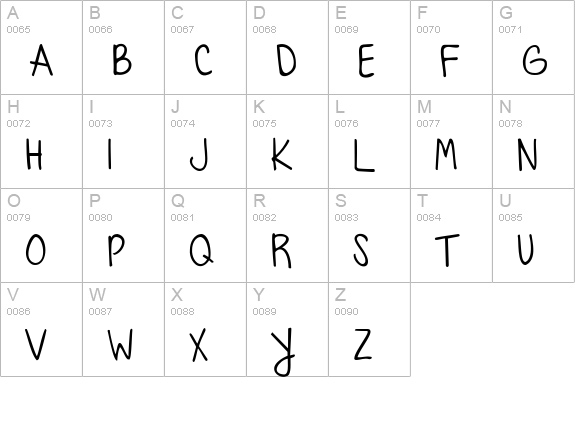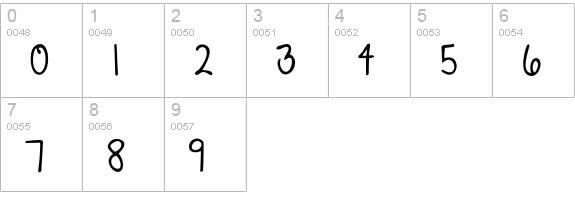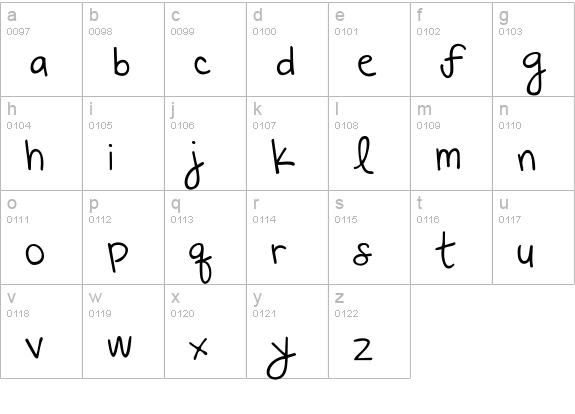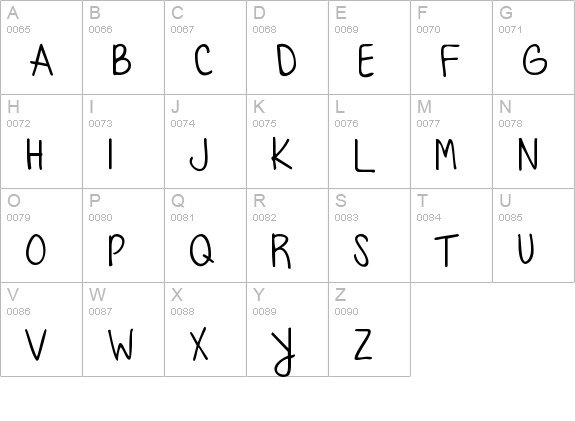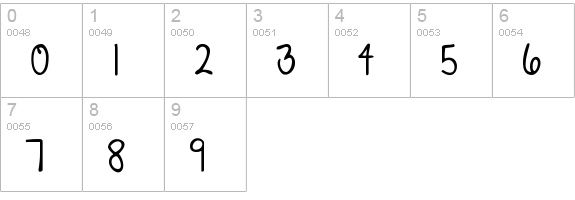
Introducing Beautiful Every Time, a breathtakingly elegant font that exudes grace and sophistication. With its delicate curves and impeccable craftsmanship, this font captures the essence of timeless beauty. Whether used for branding, invitations, or editorial projects, Beautiful Every Time will make a lasting impression. This remarkable font features a harmonious balance between thin, graceful lines and subtle, refined details. Each letter has been meticulously designed to evoke a sense of elegance and poise. From the captivating uppercase characters to the enchanting lowercase glyphs, every element of Beautiful Every Time exudes a sense of sheer beauty. What sets Beautiful Every Time apart is not only its stunning aesthetics but also its versatility. This font seamlessly adapts to a wide range of design projects, from romantic wedding invitations to elegant book covers. Its versatility makes it a must-have for any designer looking to add a touch of elegance to their creations. And the best part? Beautiful Every Time is absolutely free. Yes, you read that right. This extraordinary font is freely available to download at FontsMarket.com, where you can easily access and incorporate it into your designs. Now, you can effortlessly create stunning visuals without breaking the bank. So, why settle for ordinary when you can have extraordinary? Download Beautiful Every Time today and let your creativity soar to new heights. With its timeless beauty and its accessibility, this font is a true gem in the world of typography. Experience the allure of Beautiful Every Time and discover the transformative power it holds for your design projects.